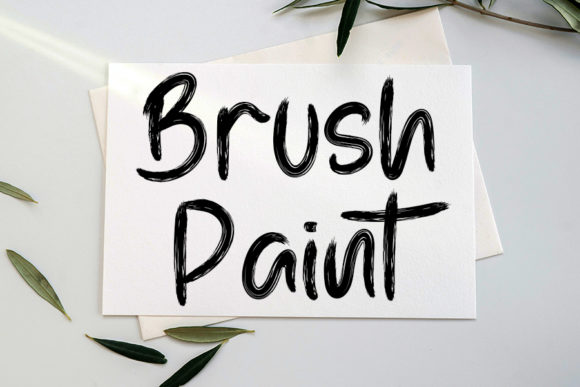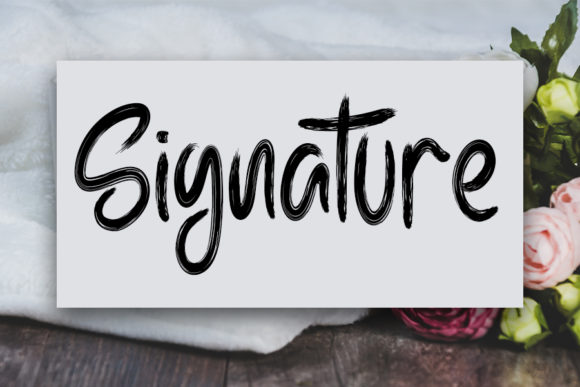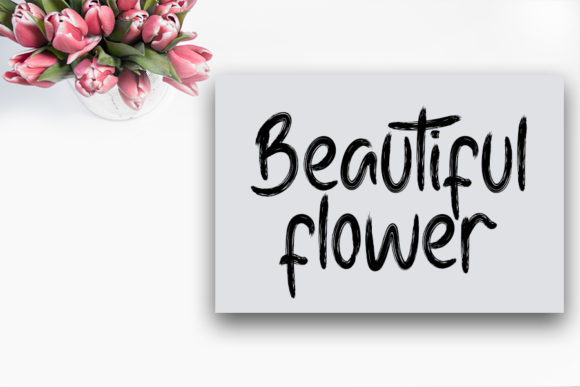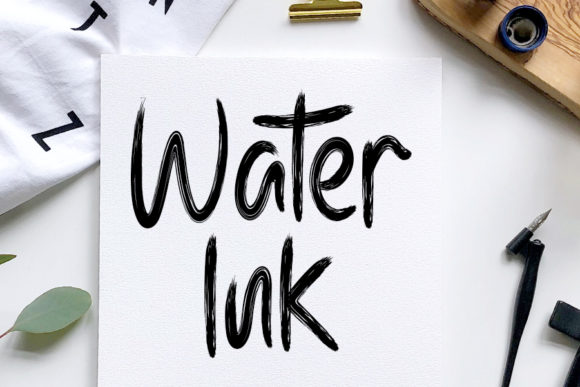
The Quest for the Perfect Font: Discovering Ashokia
I still remember the design project that led me to discover Ashokia, a sweet and delicate brush style script font. I was working on a branding project for a travel company, and I needed a font that would evoke a sense of adventure and authenticity. I had spent hours scouring the internet for the perfect font, but nothing seemed quite right. That was when I stumbled upon Ashokia, and it instantly became my go-to font for the project.
A Honest Review of Ashokia
Ashokia is indeed a gem of a font, and here’s what I love about it:
- ✨ Sweet and delicate: Ashokia has a unique, hand-brushed feel that’s perfect for adding a touch of whimsy to your designs.
- ✅ Highly versatile: This font can be used for a wide range of design projects, from branding and packaging to social media graphics and invitations.
- 💫 Authentic feel: Ashokia has a distinctly adventurous and authentic feel that’s perfect for travel, outdoor, or lifestyle brands.
Of course, no font is perfect, and Ashokia has a few quirks:
- 🤔 Limited kerning options: Ashokia doesn’t have a wide range of kerning options, which can make it a bit tricky to use for body text or long paragraphs.
- ⚠️ Not suitable for very small text: Due to its delicate nature, Ashokia may not be the best choice for very small text sizes (below 10-12 points).
The Designer Inspiration Behind Ashokia
Ashokia was inspired by the beauty of hand-brushed lettering and the elegance of traditional calligraphy. The font’s creator wanted to capture the essence of adventure and freedom, while also conveying a sense of sophistication and refinement. The result is a font that’s both delicate and bold, perfect for adding a touch of personality to your designs.
Q: What is Ashokia’s personality?
A: Ashokia has a sweet, delicate personality that’s perfect for adding an adventurous and authentic feel to your designs.
Q: Is Ashokia suitable for body text?
A: While Ashokia can be used for body text, it may not be the best choice for very long paragraphs or small text sizes.
Q: Does Ashokia have OpenType features?
A: Yes, Ashokia has a range of OpenType features, including ligatures and stylistic alternates, that can be accessed in compatible design software.